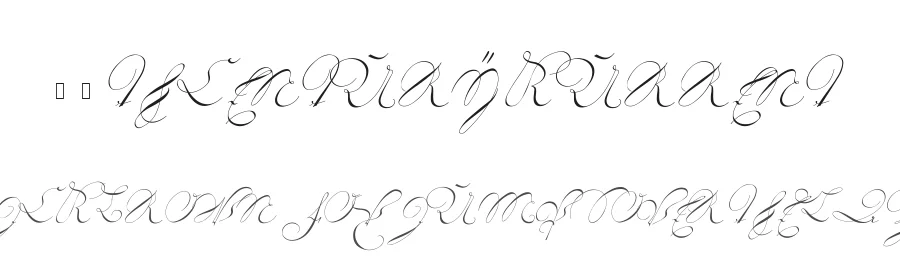
Daft Font is a script & handwritten font designed by MatreroG. It includes 119 glyphs, a regular weight, TTF (TrueType) format, and 128 languages. Daft Font is free to download; check the license details on this page before commercial use. Script & handwritten fonts like Daft Font work best for wedding invitations, greeting cards, signatures, and elegant branding.
Daft Font is a script font that shines as a display or heading face. Pair it with a clean sans-serif or serif font for body text β the contrast creates a clear hierarchy while the two styles stay balanced and easy to read.
Daft Font
by MatreroG
Daft Font is a script handwritten typeface by MatreroG, ideal for logos, invitations, branding, and creative projects.